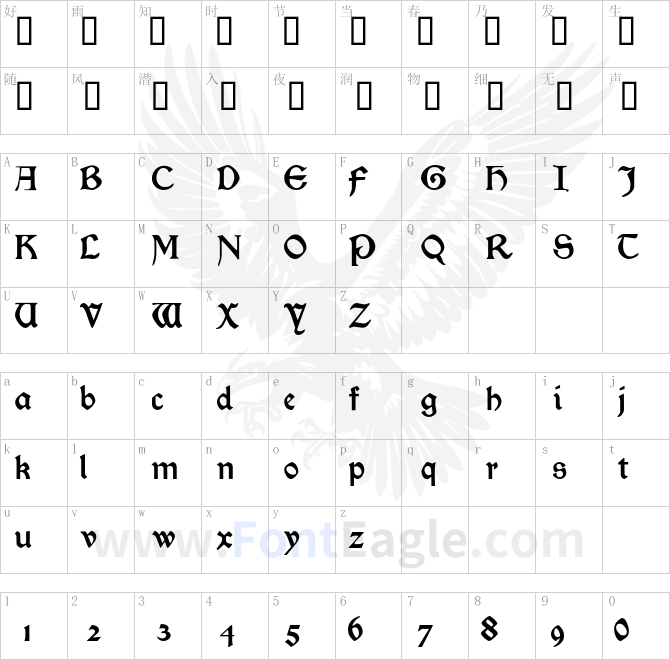
- Font name:Morris Roman Alternate
- Font Copyright:Copyright (c) Typographer Mediengestaltung, 2002. All rights reserved. Designed by William Morris in 1893. Digitized and hinted by Dieter Steffmann, Kreuztal.